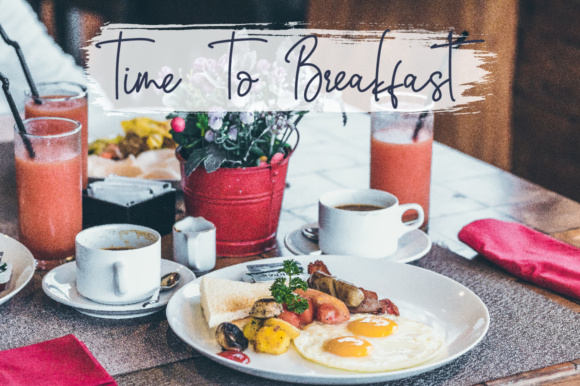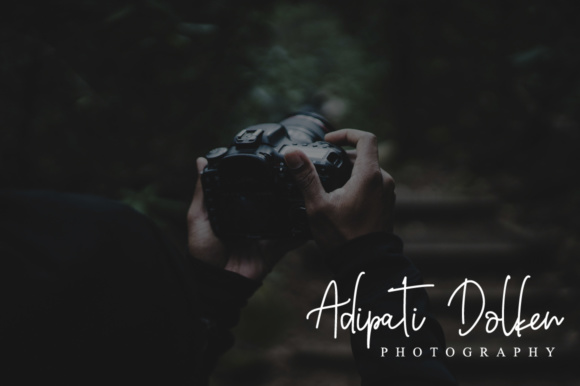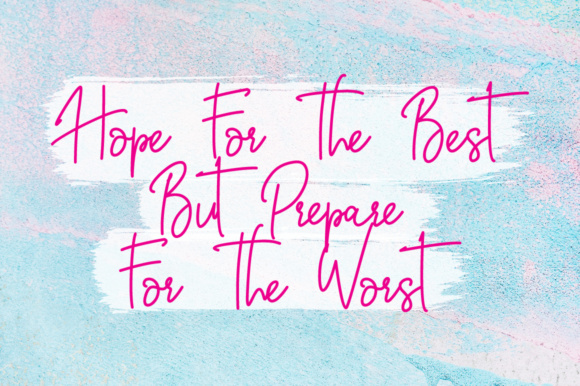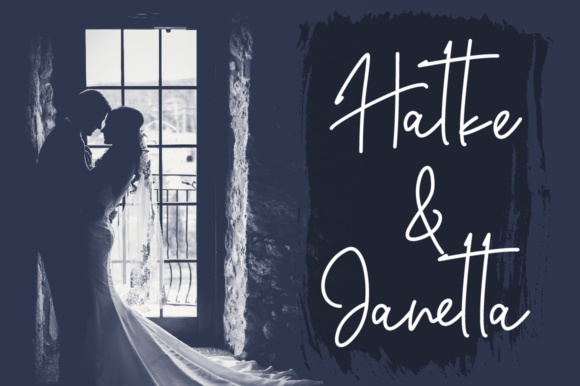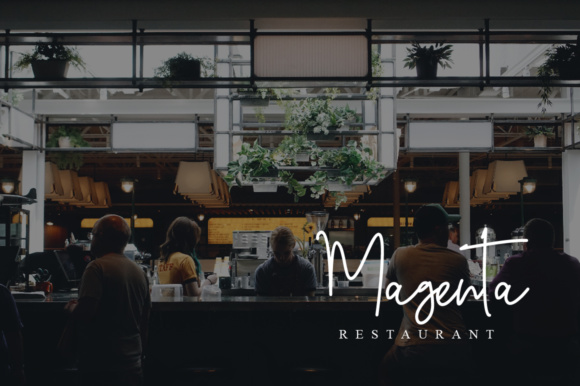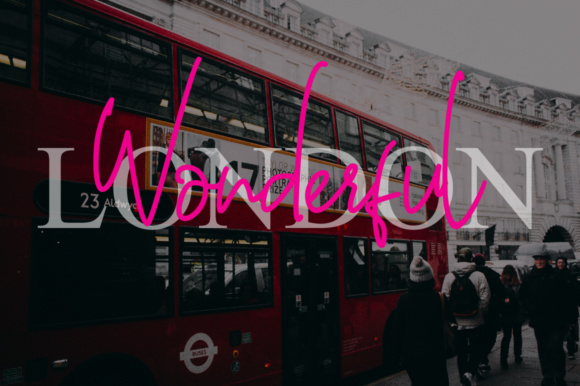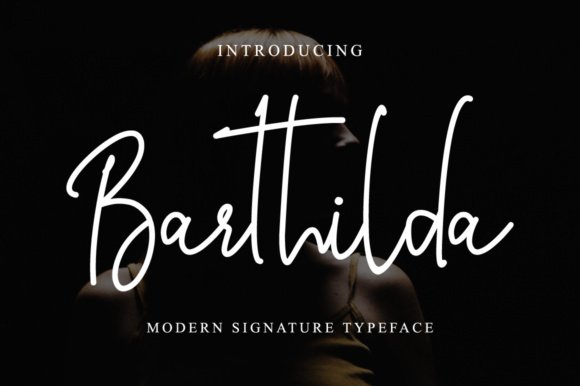
The Perfect Script: Elevating Your Design with the Barthilda Font
Have you ever stared at a blank canvas, feeling stuck and unsure of where to start? The creative process can be intimidating, but it’s moments like these that remind us why we love design in the first place. The thrill of bringing an idea to life, of watching it take shape and form, is what drives us to keep pushing the boundaries of what’s possible.
For designers, finding the right font can be the key to unlocking that perfect look. That’s where the Barthilda Font comes in – a stylish handwritten typeface that adds a touch of elegance and sophistication to any project. With its modern aesthetic and classic feel, the Barthilda Font is a valuable addition to any designer’s toolkit.
Barthilda Font Key Features
- Unique Characteristic: The font features a unique blend of modern and vintage elements, making it perfect for creating a unique visual identity.
- Style Options: The font is available in Regular, Italic, Bold, and Bold Italic styles, offering flexibility for various design applications.
Barthilda Font Review
Overall, I think Barthilda is a nice, elegant font. ✨ The subtle flair at the ends of the letters gives it a sophisticated touch. ✨ The font’s design is quite versatile, making it suitable for a wide range of applications, from body text to headings.
- ✨ Elegant, refined design
- ✨ Versatile and suitable for various applications
- ✨ Nice legibility, even at smaller font sizes
However, there are a few limitations that prevent me from giving it a full thumbs up. ⚠️ The font’s design, while elegant, can also be quite ornate. This might make it difficult to read in certain contexts, especially when used in large blocks of text.
- ⚠️ Can be difficult to read in large blocks of text
- ⚠️ May not be the best choice for headings with very small font sizes
- ⚠️ Limited language support
Overall, I think Barthilda is a solid choice for designers looking for a refined, elegant font. However, it’s essential to consider the limitations and use it judiciously to avoid any potential readability issues.
For optimal results, use Barthilda Font in headings and titles to add a touch of elegance and sophistication. Experiment with different font sizes and styles to create visual hierarchy and emphasis.
Barthilda Font is ideal for:
- Formal event branding and marketing materials
- High-end product packaging and labeling